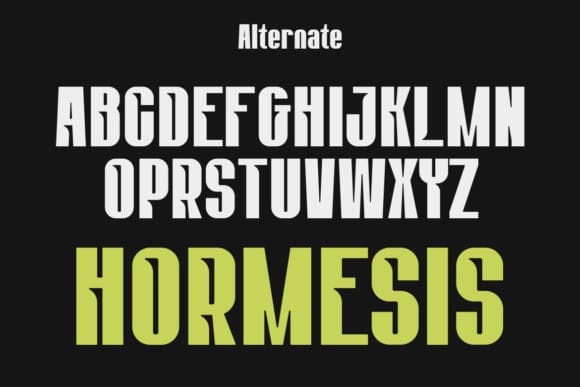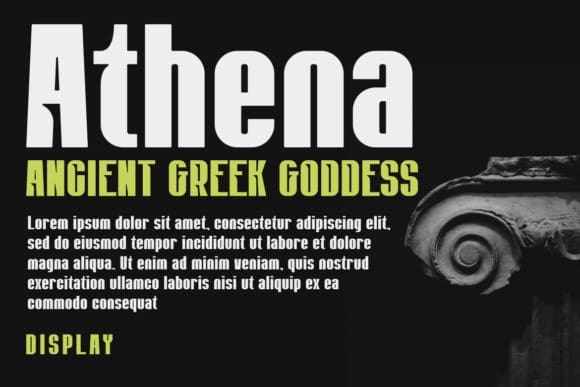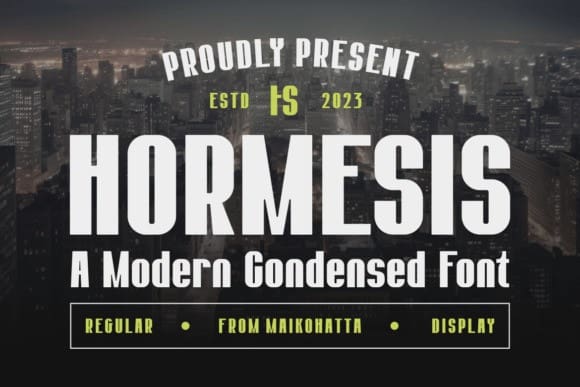
Hormesis Font
Hormesis Font – Condensed Display Font  – Modern Font is a bold and authentic display font. The font is suitable for any branding project like logo, template design, esport, and many more. outstanding in a wide range of contexts.